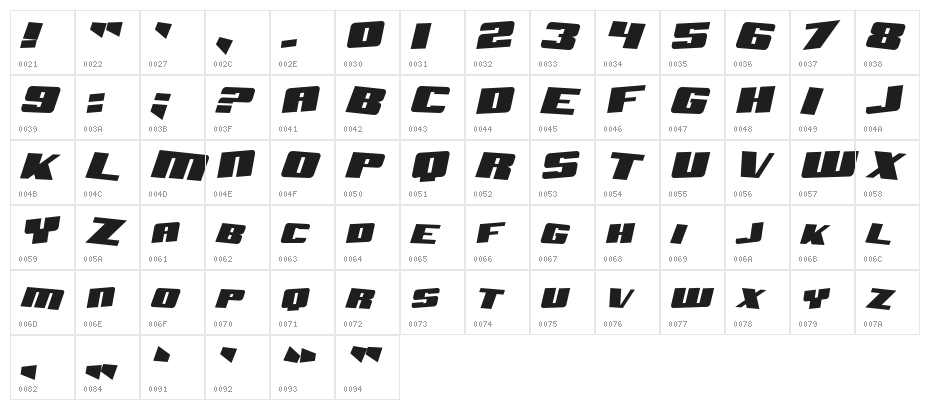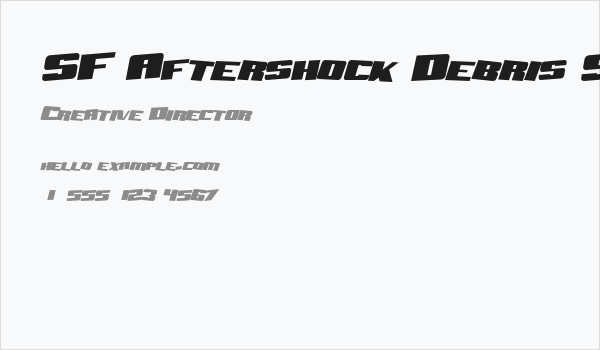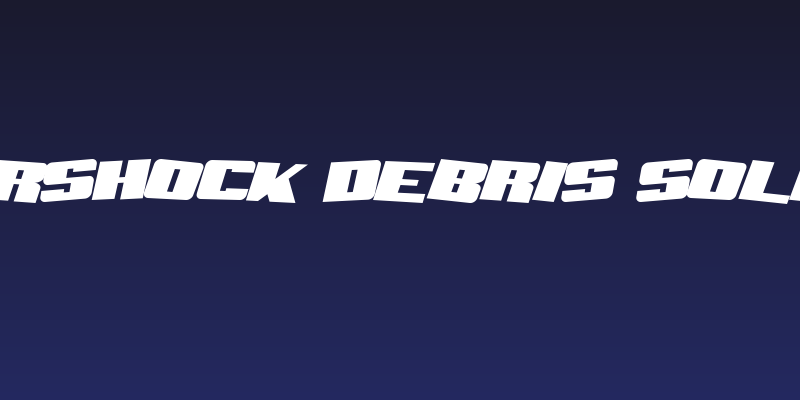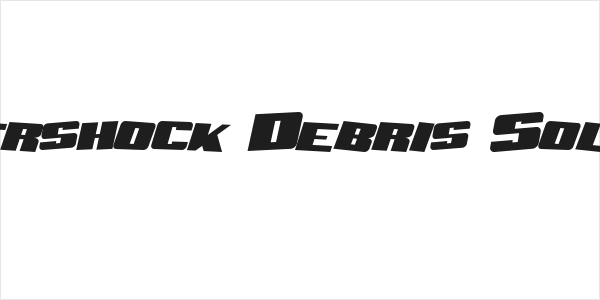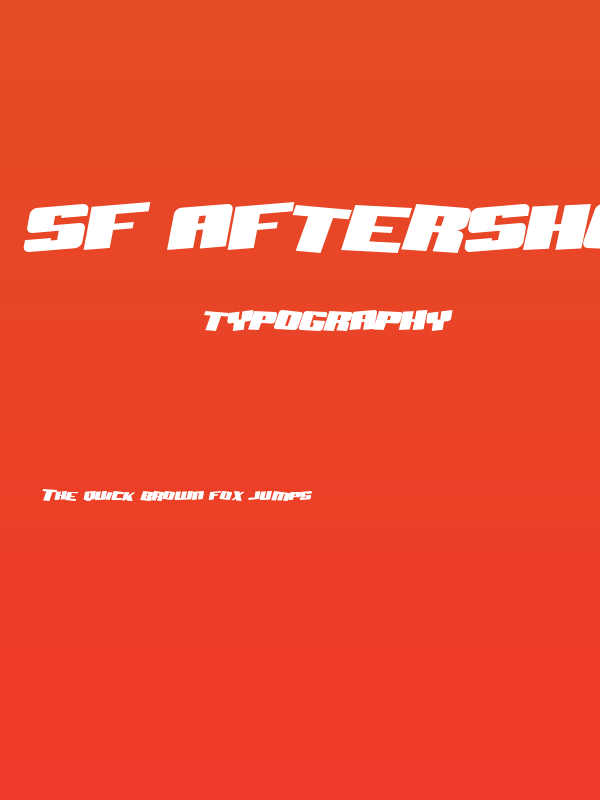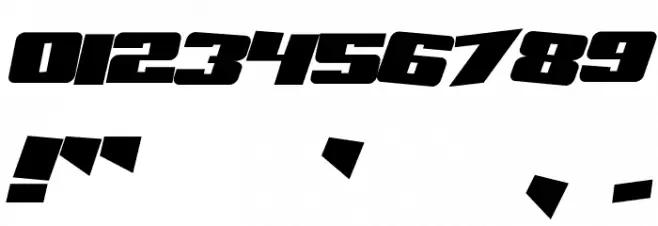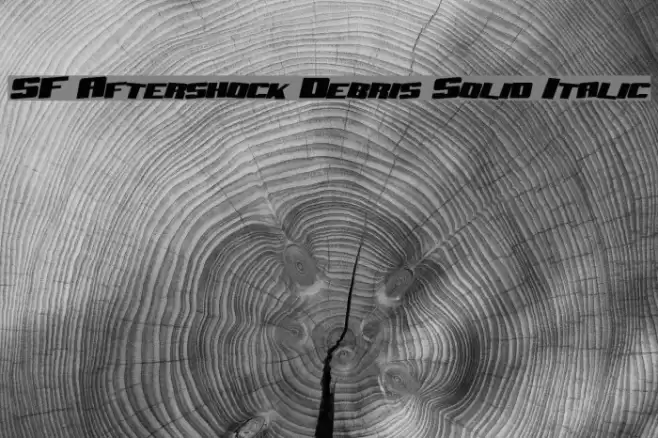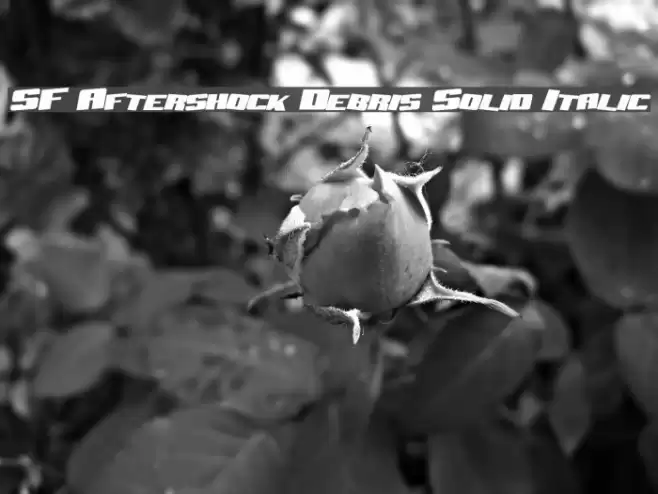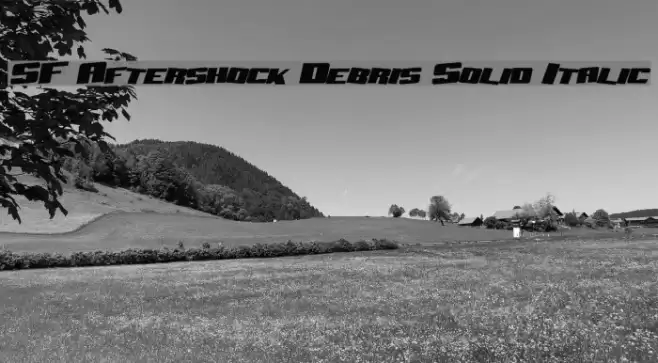
SF Aftershock Debris Solid Italic Font
SF Aftershock Debris Solid Italic Description
This font features a bold and dynamic design with a distinctly angular and geometric style. The characters are heavily slanted, giving a sense of motion and energy, which is further emphasized by the solid, block-like appearance. The uppercase and lowercase letters maintain a consistent weight, contributing to the font's strong visual impact. The numbers and special characters follow the same design principles, ensuring uniformity across all glyphs. This font's unique style makes it suitable for projects that require a bold and attention-grabbing typeface.
| Proposed Projects | Ideal for sports branding, action movie posters, video game titles, and dynamic advertising campaigns. |